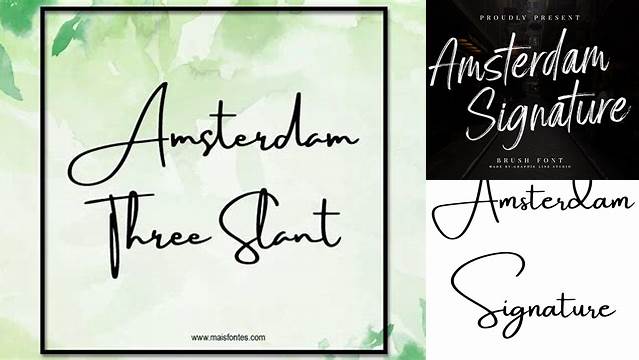
1. Introduction to Amsterdam Signature Three Font
Amsterdam Signature Three Font is a stylish and elegant script font that mimics natural handwriting. It’s perfect for adding a touch of sophistication to your designs. Whether you're working on branding, logos, invitations, or social media graphics, this font can elevate your project to the next level. Its flowing lines and unique character make it a favorite among designers and creatives alike. Let’s explore what makes this font so special and why it's a must-have in your font library. The beauty of Amsterdam Signature Three Font lies in its versatility; it can seamlessly blend into various design styles, from modern minimalist to classic vintage. Its clean and legible design ensures that your message is conveyed clearly while maintaining an artistic flair. This font's unique characteristics make it a standout choice for designers aiming to create visually appealing and impactful designs. Moreover, its availability for free download makes it an accessible option for both seasoned professionals and budding creatives. Amsterdam Signature Three Font is more than just a typeface; it's a design asset that can transform your projects. It embodies elegance, style, and sophistication, making it an ideal choice for adding a personal touch to your work. By exploring its features and applications, you can unlock its full potential and create designs that truly stand out. Now, let's delve deeper into where you can find this amazing font and how you can incorporate it into your creative endeavors.
4. Using Amsterdam Signature Three Font in Design Projects
Now for the fun part – using Amsterdam Signature Three Font in your design projects! This font is incredibly versatile and can be used in a wide range of applications. It's perfect for creating logos, branding materials, wedding invitations, social media graphics, and much more. When using this font, consider the overall aesthetic you're trying to achieve. For a sophisticated look, pair it with a clean sans-serif font. For a more vintage feel, combine it with a classic serif font. Experiment with different colors and sizes to see what works best for your project. Don't be afraid to use Amsterdam Signature Three Font in headings, subheadings, and even body text, but always ensure readability. For example, in a logo, you might use the font for the main brand name and a simple sans-serif font for the tagline. In a wedding invitation, Amsterdam Signature Three Font can add an elegant touch to the names of the couple and the date of the event. When designing social media graphics, use the font to highlight important messages or create eye-catching headlines. Remember to maintain consistency in your design by using a limited number of fonts and colors. This will help create a cohesive and professional look. With Amsterdam Signature Three Font, the possibilities are endless, so let your creativity guide you and create stunning designs that capture the essence of your message. So, go ahead and explore different design avenues, and watch how Amsterdam Signature Three Font elevates your projects to new heights.
5. Best Font Pairings for Amsterdam Signature Three Font
Choosing the right font pairing can make or break your design. Amsterdam Signature Three Font pairs beautifully with a variety of fonts, depending on the look you're going for. For a modern and clean look, try pairing it with a sans-serif font like Montserrat or Open Sans. For a more classic and elegant feel, consider using a serif font like Times New Roman or Georgia. Another great option is to pair it with a simple script font for a cohesive and harmonious design. When pairing fonts, pay attention to the contrast and balance between them. You want to choose fonts that complement each other without overpowering one another. For example, if you're using Amsterdam Signature Three Font for a heading, you might use a simple sans-serif font for the body text. This will help create a clear hierarchy and improve readability. Experiment with different font sizes and weights to see what works best for your design. Don't be afraid to mix and match different styles, but always ensure that the fonts are visually appealing and easy to read. Remember, the goal is to create a design that is both aesthetically pleasing and functional. With the right font pairing, you can enhance the overall impact of your design and create a lasting impression. So, explore different font combinations, and discover the perfect pairings that bring out the best in Amsterdam Signature Three Font and elevate your creative projects.
6. Alternatives to Amsterdam Signature Three Font
If Amsterdam Signature Three Font isn't quite what you're looking for, there are plenty of alternatives to choose from. Some popular options include Brush Script MT, Great Vibes, and Pacifico. These fonts offer a similar handwritten feel but with their own unique characteristics. Brush Script MT is a classic choice for adding a vintage touch to your designs, while Great Vibes is perfect for creating elegant and sophisticated invitations. Pacifico has a more casual and playful vibe, making it ideal for social media graphics and blog headers. When choosing an alternative font, consider the overall style and message you're trying to convey. Do you want a font that is bold and attention-grabbing, or something more subtle and understated? Think about the specific application of the font and how it will interact with other design elements. For example, if you're designing a logo, you'll want a font that is legible and memorable. If you're creating a website, you'll need a font that is easy to read on screen. Ultimately, the best alternative to Amsterdam Signature Three Font will depend on your individual preferences and the specific requirements of your project. Explore different options, experiment with different styles, and find the font that perfectly captures your vision. So, don't hesitate to try out different fonts and discover the one that resonates with your creative sensibilities and helps you achieve your design goals.
8. Tips for Maximizing the Impact of Amsterdam Signature Three Font
To really make Amsterdam Signature Three Font shine, here are a few tips to keep in mind. First, pay attention to kerning and leading. Kerning refers to the spacing between individual letters, while leading refers to the spacing between lines of text. Adjusting these settings can significantly improve the readability and visual appeal of your text. Second, experiment with different colors and backgrounds. Amsterdam Signature Three Font looks great in a variety of colors, but it's important to choose colors that complement your overall design. Consider using a contrasting color for the font to make it stand out against the background. Third, use the font sparingly. While Amsterdam Signature Three Font is beautiful, it can be overwhelming if used too much. Use it strategically to highlight important messages or create eye-catching headlines. Fourth, don't be afraid to get creative with your design. Experiment with different layouts, graphics, and effects to create a unique and memorable design. By following these tips, you can maximize the impact of Amsterdam Signature Three Font and create designs that truly stand out. So, unleash your creativity and explore the endless possibilities of this versatile font.
9. Common Mistakes to Avoid When Using Amsterdam Signature Three Font
Even with a beautiful font like Amsterdam Signature Three Font, it's easy to make mistakes that can detract from your design. One common mistake is using the font in all caps. Amsterdam Signature Three Font is designed to be used in lowercase or title case, and using it in all caps can make it difficult to read. Another mistake is using too many different fonts in your design. Stick to a maximum of two or three fonts to create a cohesive and professional look. Another mistake is not paying attention to kerning and leading. Improper kerning and leading can make your text look cluttered and difficult to read. Finally, avoid using the font in overly complex or busy designs. Amsterdam Signature Three Font is best used in clean and simple designs that allow it to shine. By avoiding these common mistakes, you can ensure that your designs are both visually appealing and easy to read. So, be mindful of these pitfalls, and let Amsterdam Signature Three Font enhance your creative projects without any distractions.